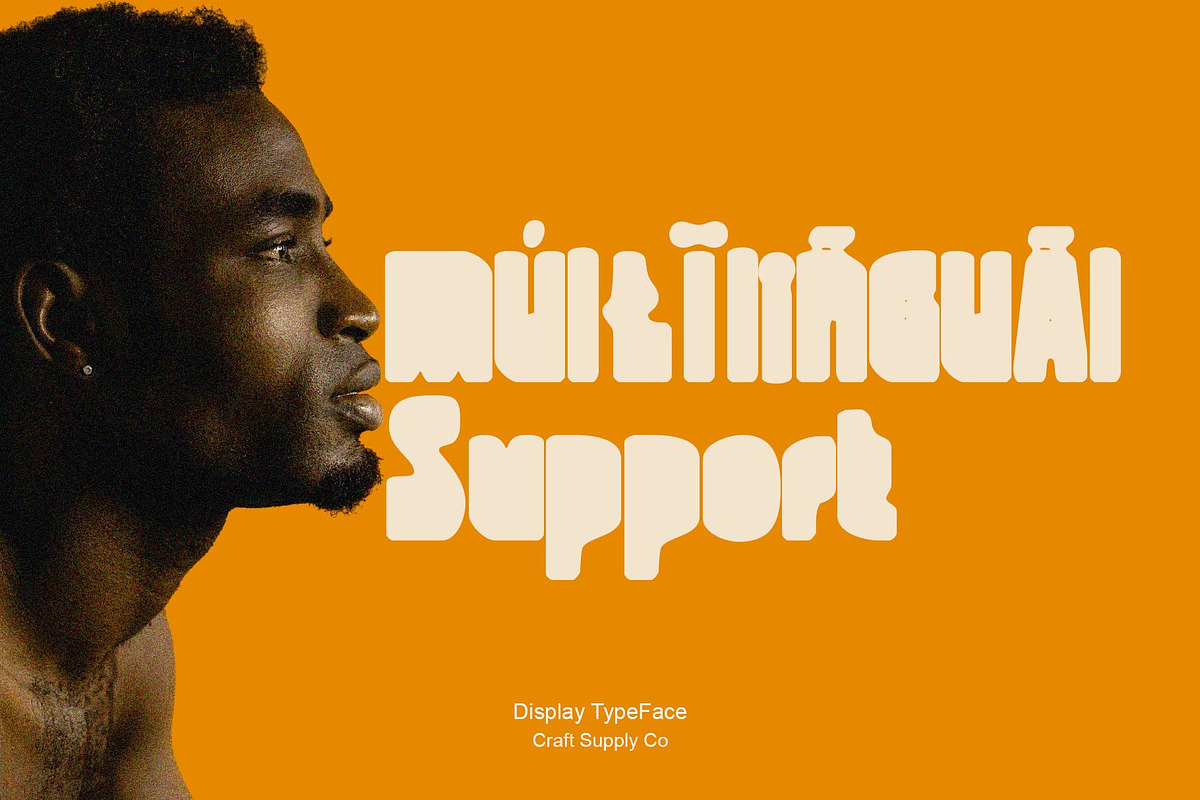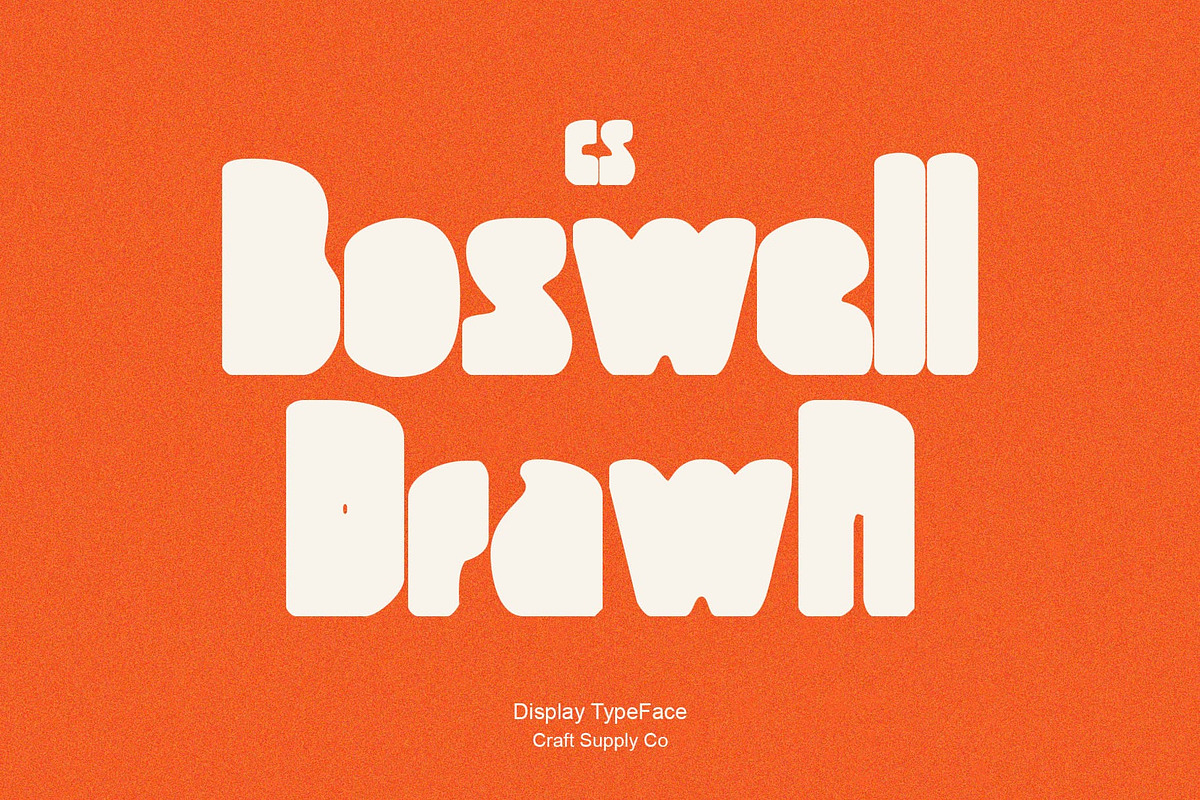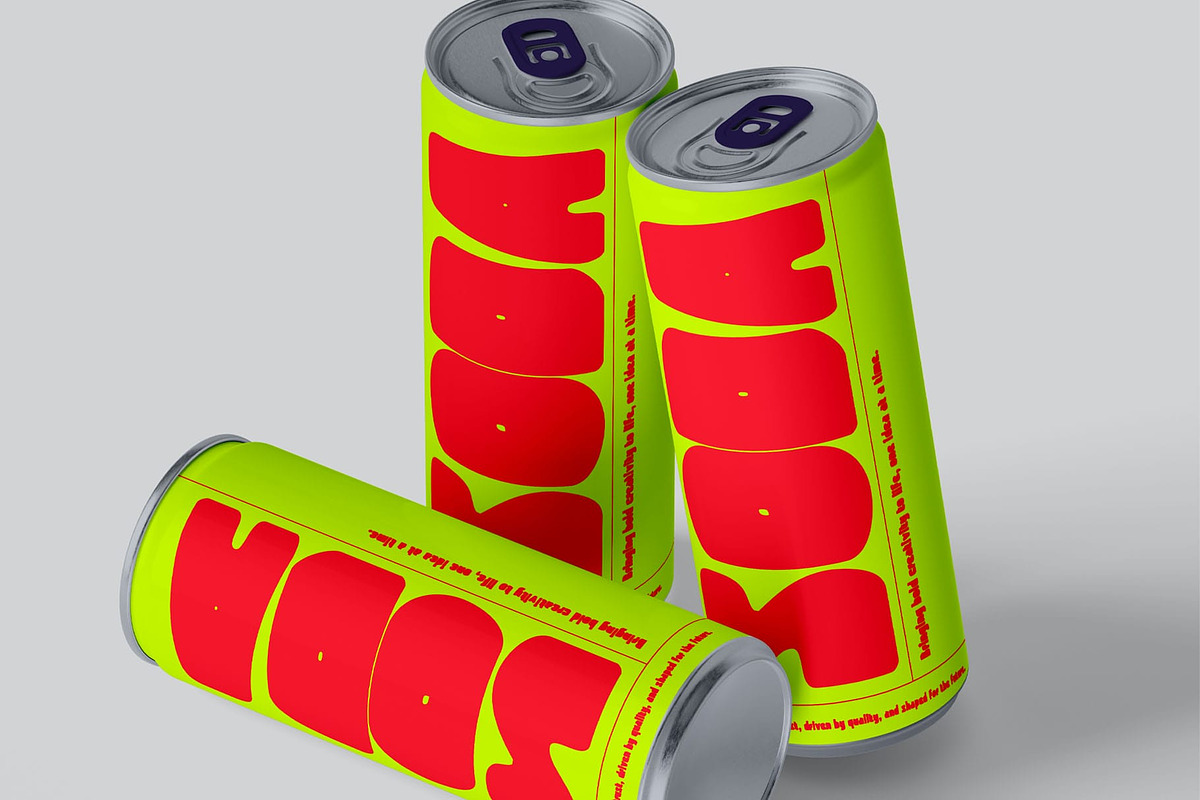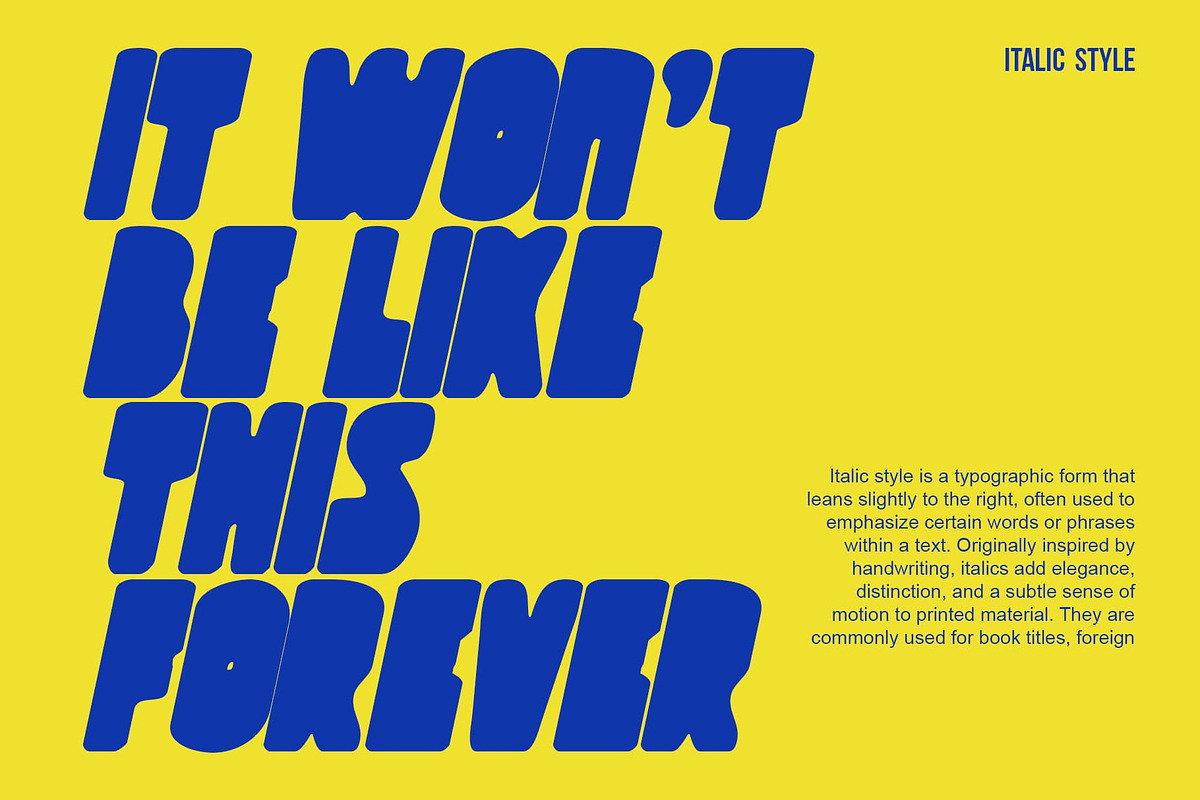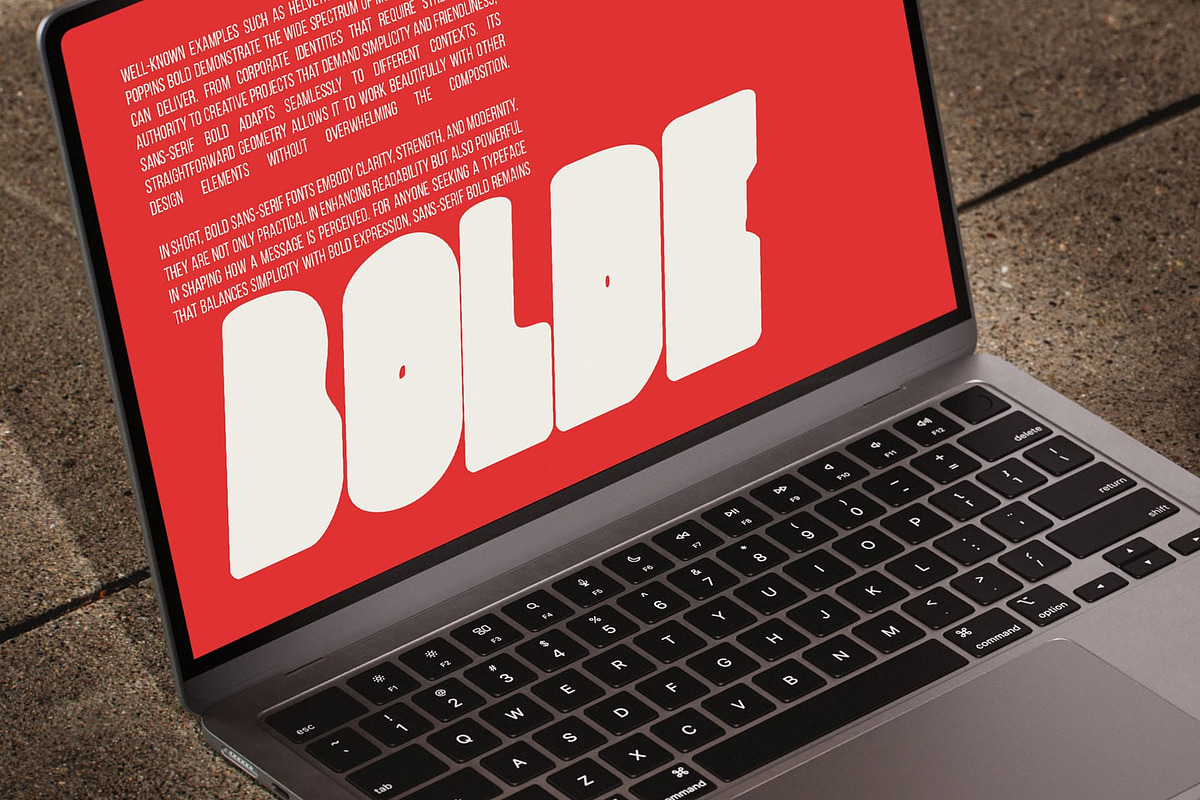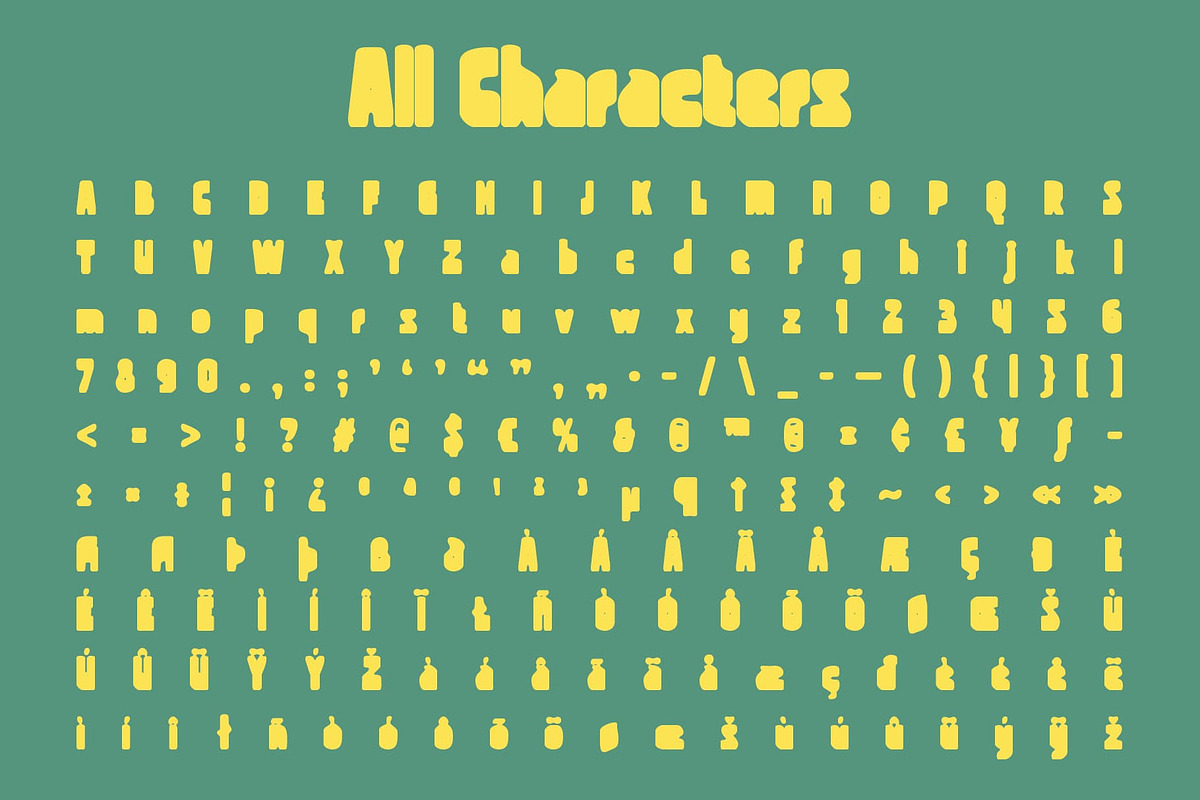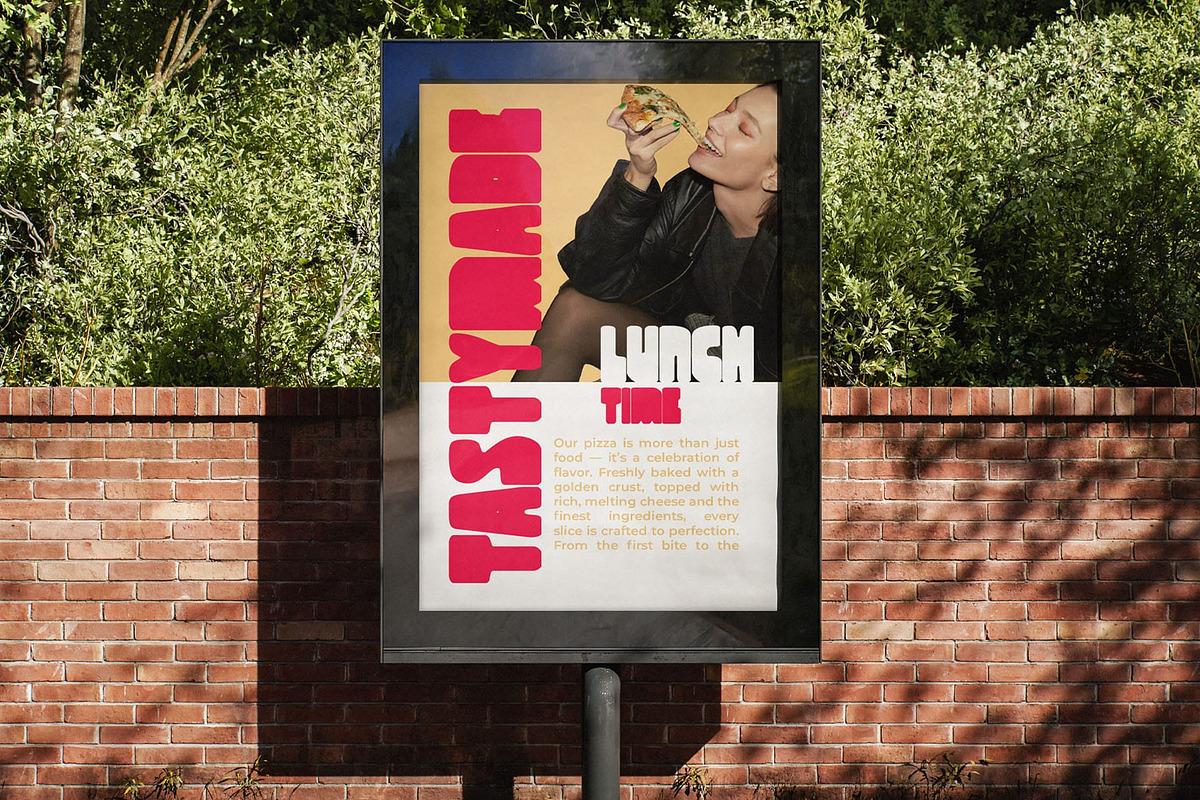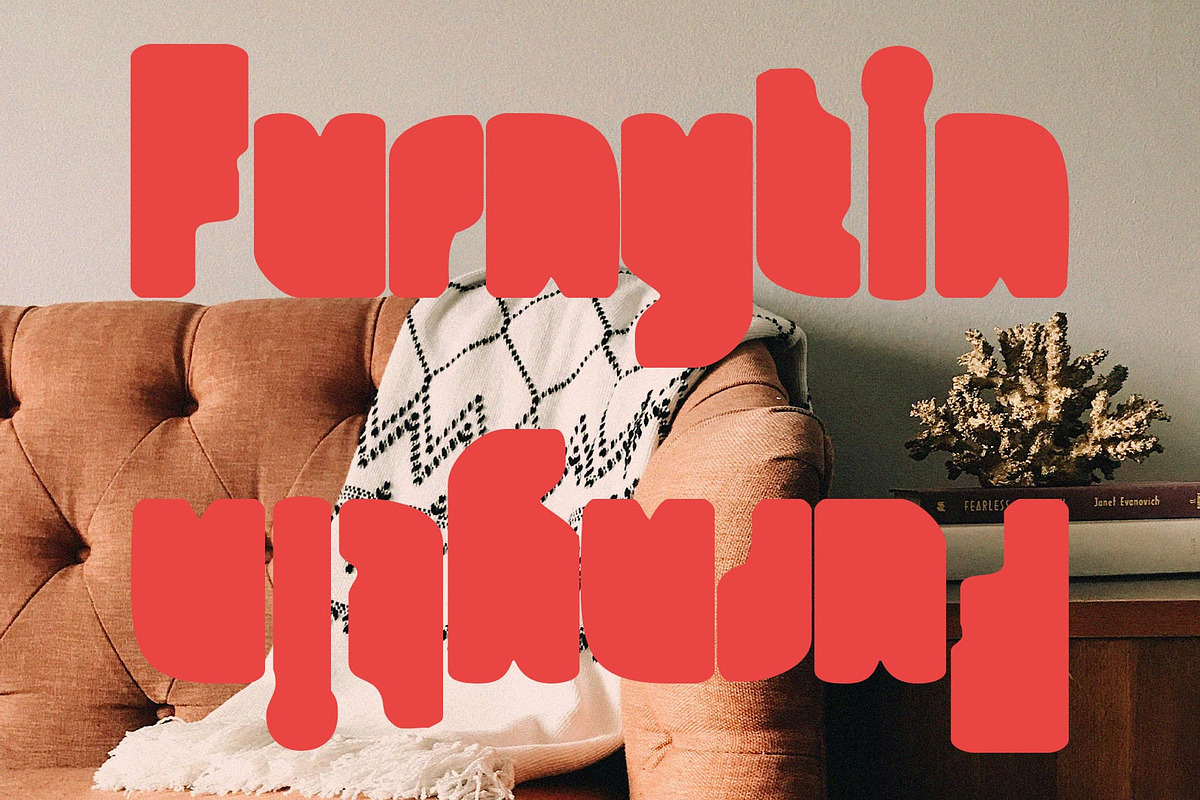
CS Boswell Drawn
CS Boswell Drawn – Bold Display Sans Serif with Expressive Texture
Bold Display Sans Serif with Drawn Effect
Built for Bold Impact
CS Boswell Drawn is a display sans serif font designed to make a statement. With its bold, commanding strokes, it captures attention immediately and ensures your message doesn’t go unnoticed. This font thrives in large-scale applications where visibility and impact are essential, from posters to promotional materials.
Expressive Drawn Character
The unique drawn effect gives CS Boswell Drawn an expressive personality that sets it apart from standard bold fonts. Each letter carries a handcrafted feel, blending strength with artistic flair. This textured finish adds visual interest and depth, making your typography not only readable but also visually engaging.
Perfect for Branding and Headlines
When it comes to branding, headlines, and poster art, CS Boswell Drawn delivers power and presence. Its bold sans serif form ensures clarity and legibility, while the drawn detail injects character into your designs. Whether used for logo design, campaign titles, or event graphics, this font helps your work stand out with confidence.
Versatile Display Potential
Beyond its boldness, CS Boswell Drawn adapts to a range of creative contexts. Use it to create striking covers, expressive advertisements, or impactful digital content. Its combination of clean sans serif form and textured artistry gives designers a versatile tool for projects that demand both strength and individuality.